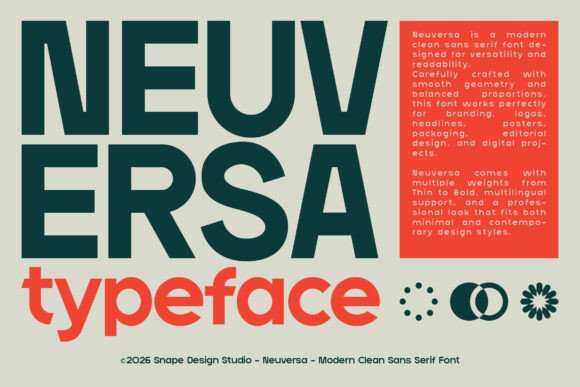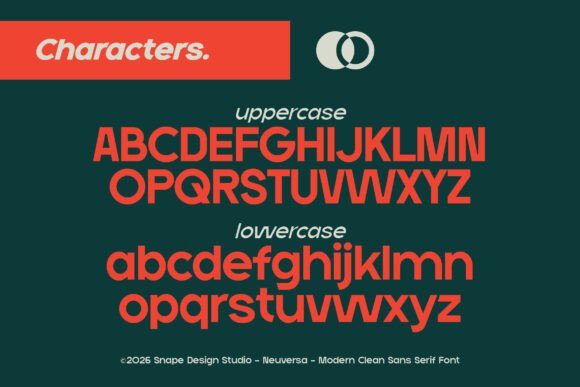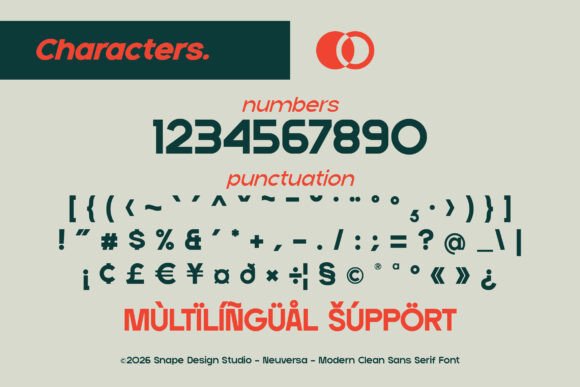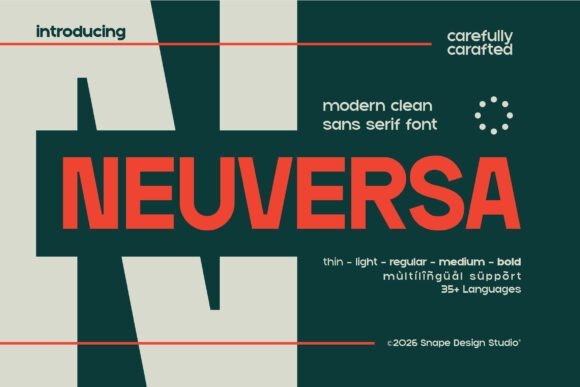
Neuversa: Modern Clean Sans Serif Define your brand’s future with Neuversa, a high-performance sans serif designed for maximum versatility.
Featuring five distinct weights—Thin, Light, Regular, Medium, and Bold—Neuversa masters the “minimalist-industrial” aesthetic Best Used For: Tech startup identities, corporate UI/UX design, high-visibility signage, and minimalist editorial layouts.
Neuversa Font offers exceptional quality and versatility, making it a valuable addition to your design toolkit. Whether you’re creating for personal projects or commercial use, Neuversa Font delivers professional results.